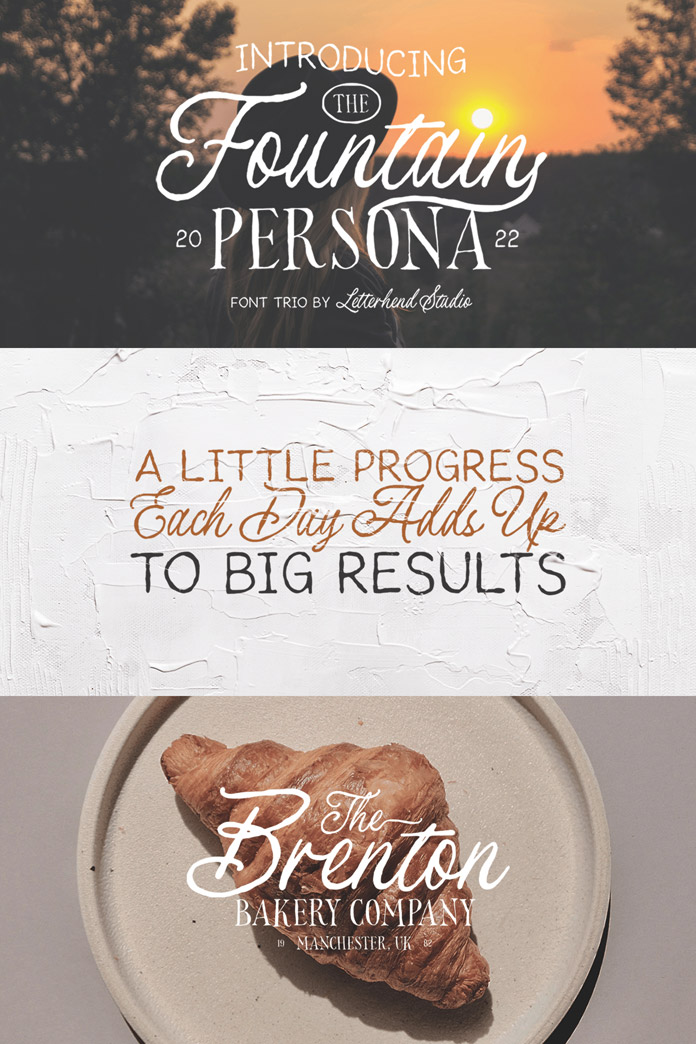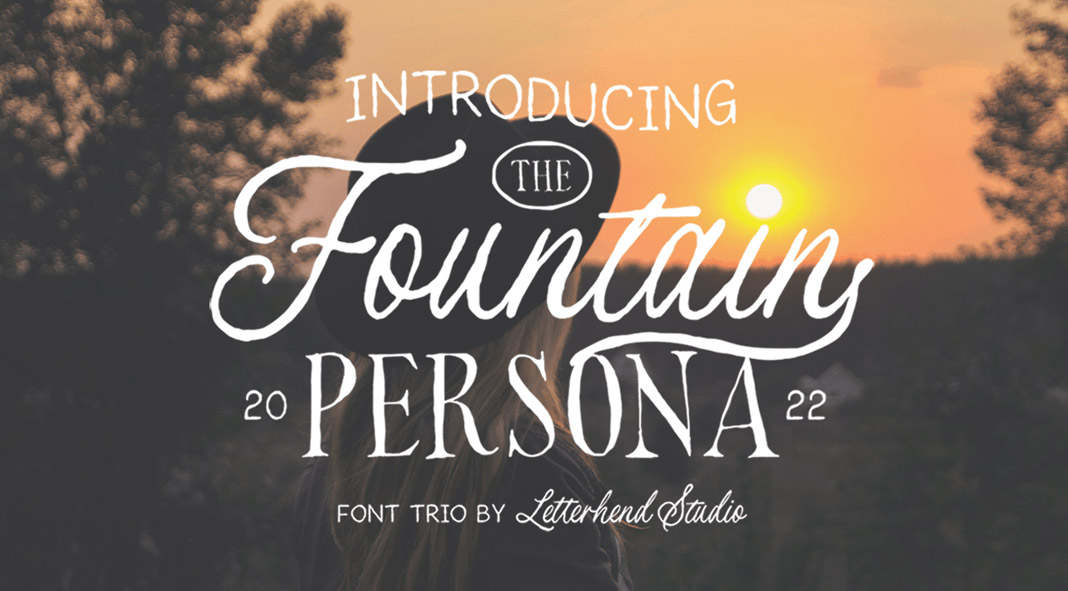
Designed by Hendry Juanda of Letterhend Studio, the Fountain Persona fonts contain three hand-drawn styles.
Fountain Persona is packed with three fonts inspired by natural handwriting and signatures. The fonts are well-suited for titles, logos, invitations, labels, magazine covers, etc. You can use it for anything that needs a handmade touch. Please see more below or click on one of the following links to purchase the Fontain Persona fonts for a very low budget.